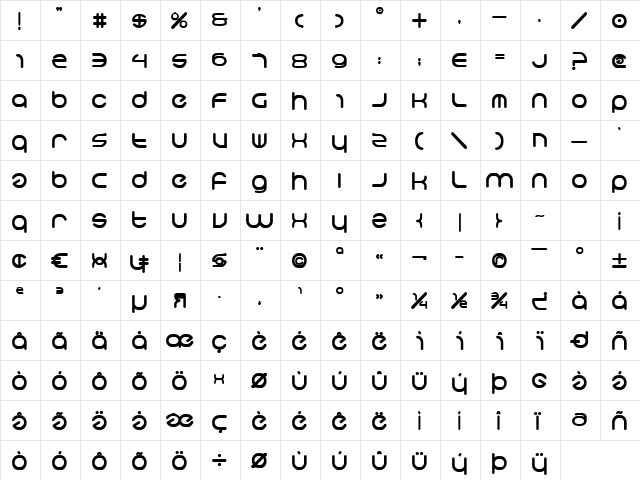
neo-geo bold bold
Design Context for neo-geo bold Typeface
neo-geo bold takes a measured approach to typography — its balanced proportions and neutral character make it a reliable workhorse for both digital and print work. Its bold stroke weight gives it real presence on the page.